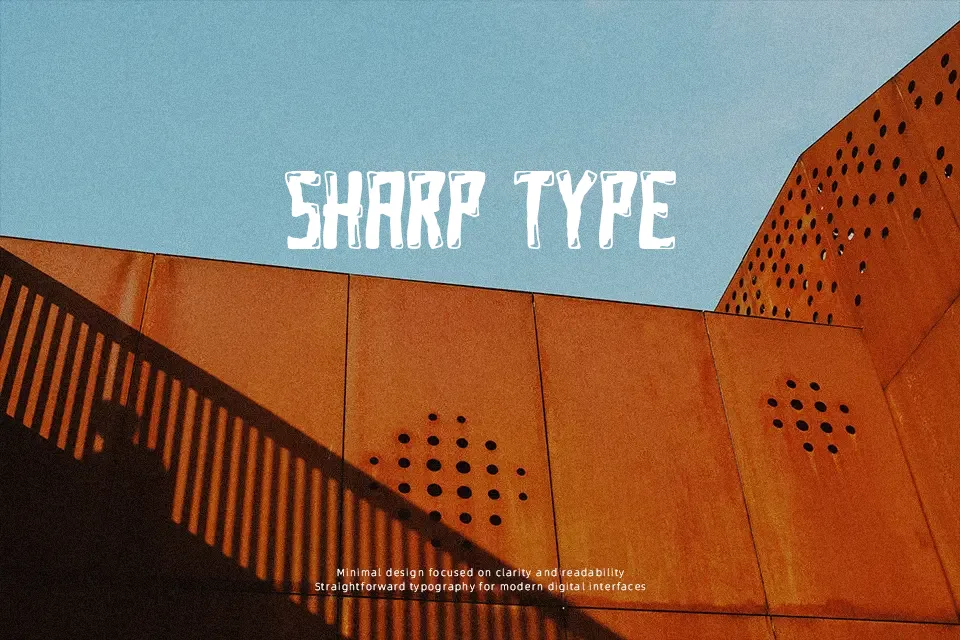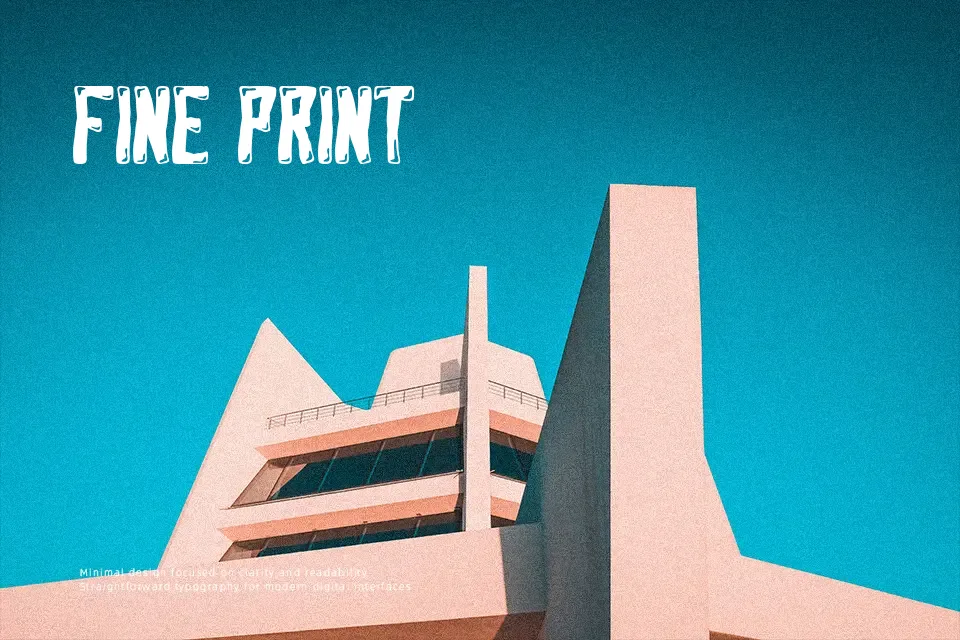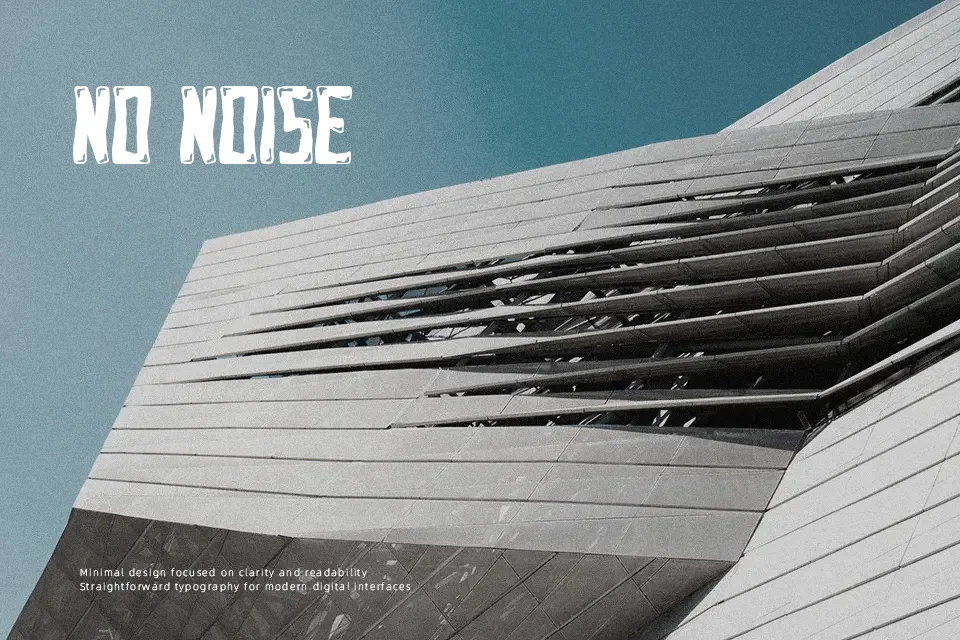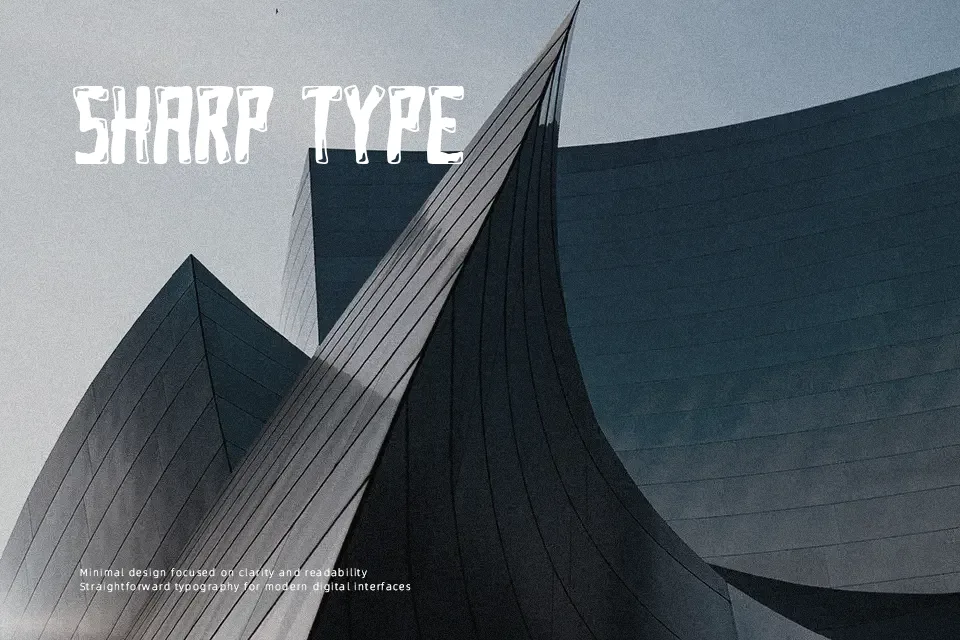
Akick Stone Font
Rough edges define Akick Stone. The strokes are thick and deliberately uneven, carrying a hand-drawn, distressed quality that lands somewhere between graffiti and cartoonish aggression. Uppercase characters dominate with a commanding presence, while lowercase letters hold the same visual weight — giving the font a consistent, in-your-face texture across settings. It suits short-burst contexts well: band logos, streetwear labels, game title screens, and urban-themed poster headers. Where it struggles is anything requiring readability at length — running body text, formal layouts, or corporate identities would expose its intentional roughness as a liability rather than an asset. Think of it as a display tool with a loud personality; it earns its place in high-energy visuals but overstays its welcome in refined or minimal design work.
Best For:- Streetwear brand logos and apparel graphics
– Music album covers or band poster headlines
– Urban-themed game title screens or event flyers
– Social media graphics targeting youth/alternative culture audiences
Not Ideal For:- Body text or extended reading passages
– Corporate branding or professional business materials
– Elegant, minimal, or luxury design contexts
– Small-size usage where stroke irregularities become visual noise
Perfect for advertising, branding, and gaming, with a bold and cartoon style.